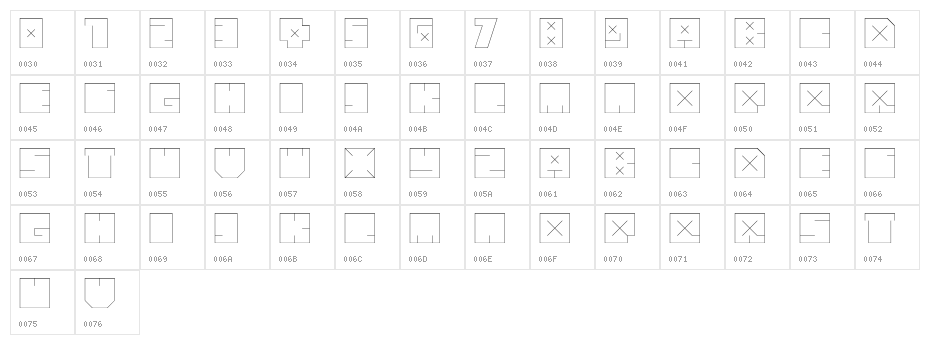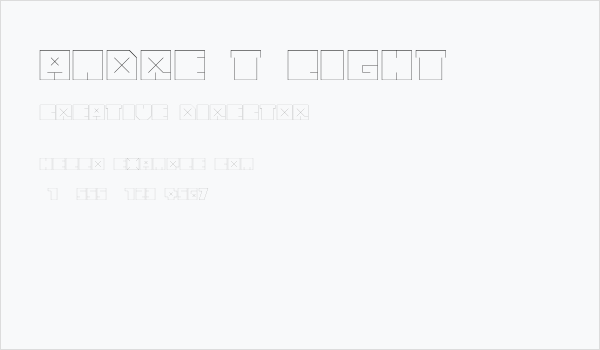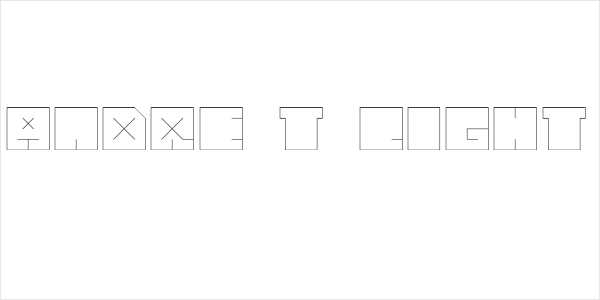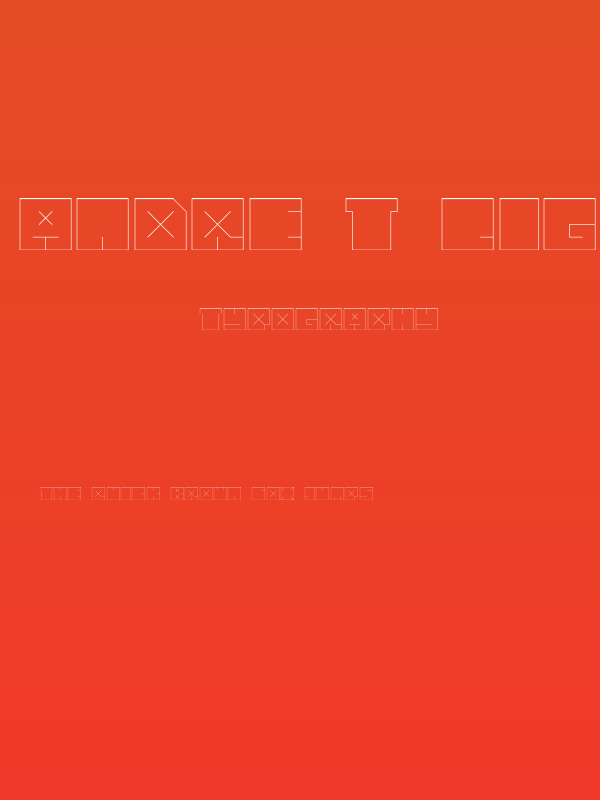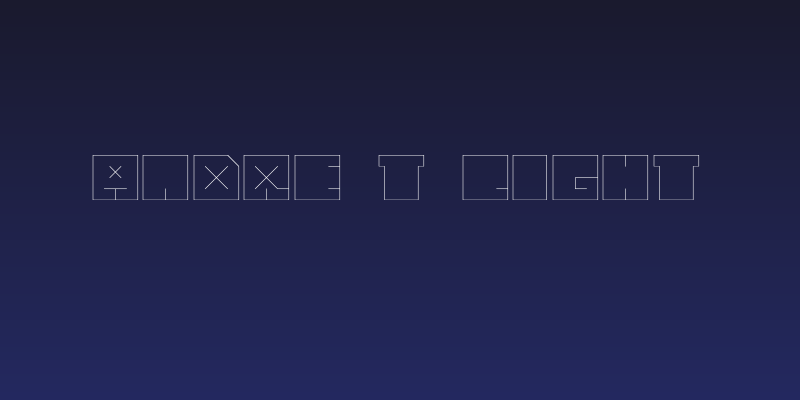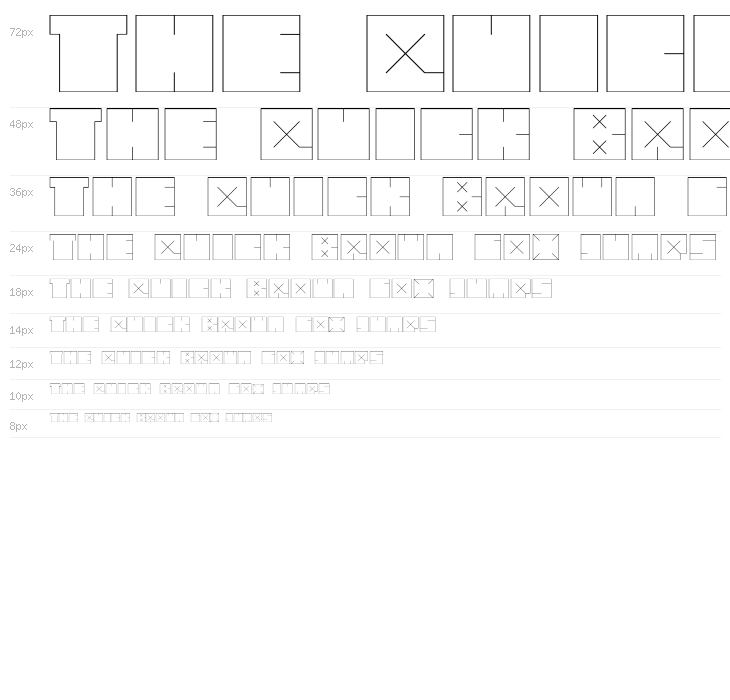
andre t light Font
andre t light Description
This font features a geometric and modern design with a distinct block-like structure. Each character is composed of straight lines and sharp angles, creating a futuristic and technical appearance. The uniformity in the design gives it a cohesive look, while the minimalistic approach adds to its contemporary feel. The font's unique style is characterized by its use of negative space and the absence of curves, making it stand out in digital and print media. The uppercase and lowercase letters maintain a consistent height, enhancing readability and visual appeal.
| Use Case | Logos, Headlines, Posters |
| Proposed Projects | Ideal for tech branding, digital interfaces, modern posters, and futuristic-themed projects. |